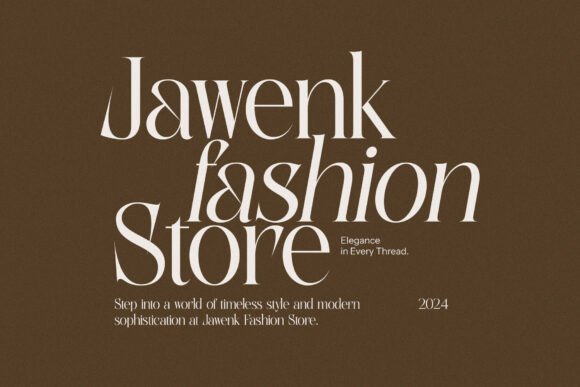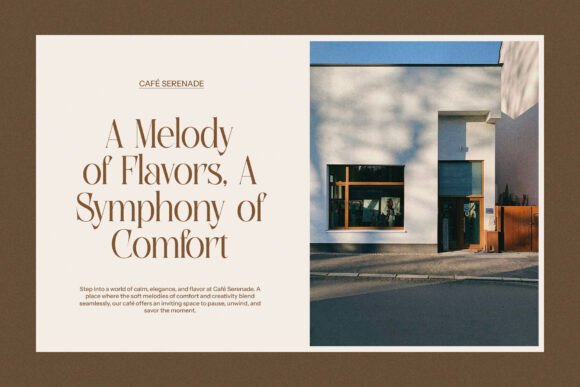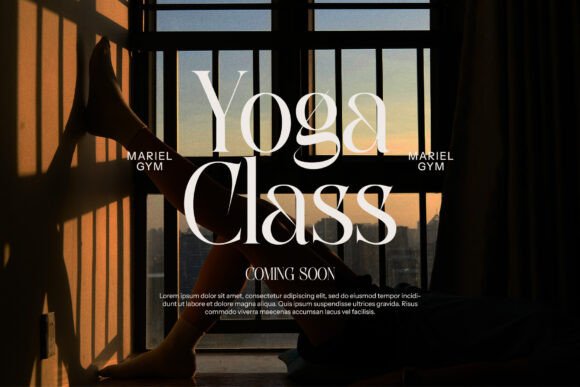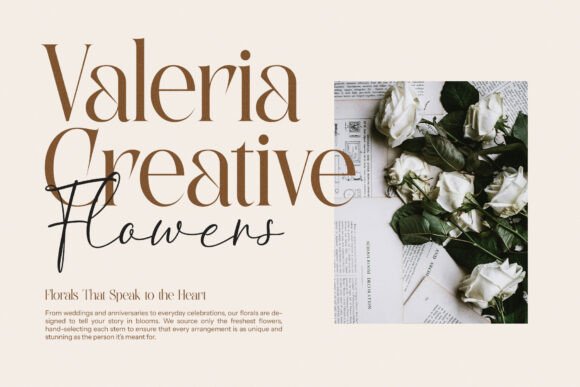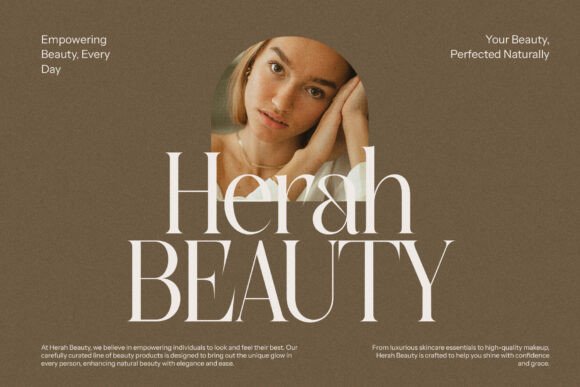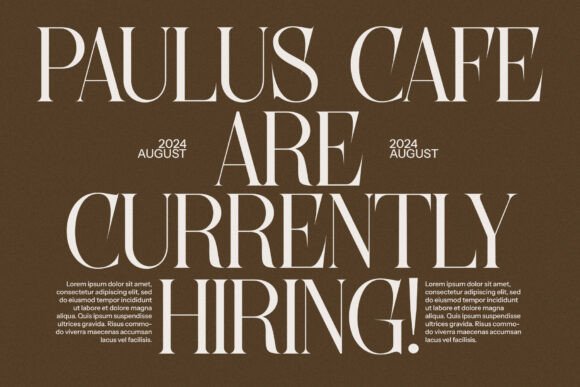
Introduction to Clagwa Font
**Clagwa Elegant Display Serif Font – A Timeless Fusion of Modern Elegance and Vintage Flair** Introducing **Clagwa Elegant Display Serif Font**, a stunning typeface designed to bring sophistication and charm to any creative project.
With its bold, refined serifs and sleek curves, **Clagwa** combines the best of both modern design and vintage elegance, offering a distinctive style that stands out in any context This versatile font is perfect for a wide range of design applications, including **logos**, **branding**, **websites**, **magazines**, and **advertisements**.
Key Features of Clagwa Font
Why Choose Clagwa Font?
Clagwa Font offers exceptional quality and versatility, making it a valuable addition to your design toolkit. Whether you’re creating for personal projects or commercial use, Clagwa Font delivers professional results.